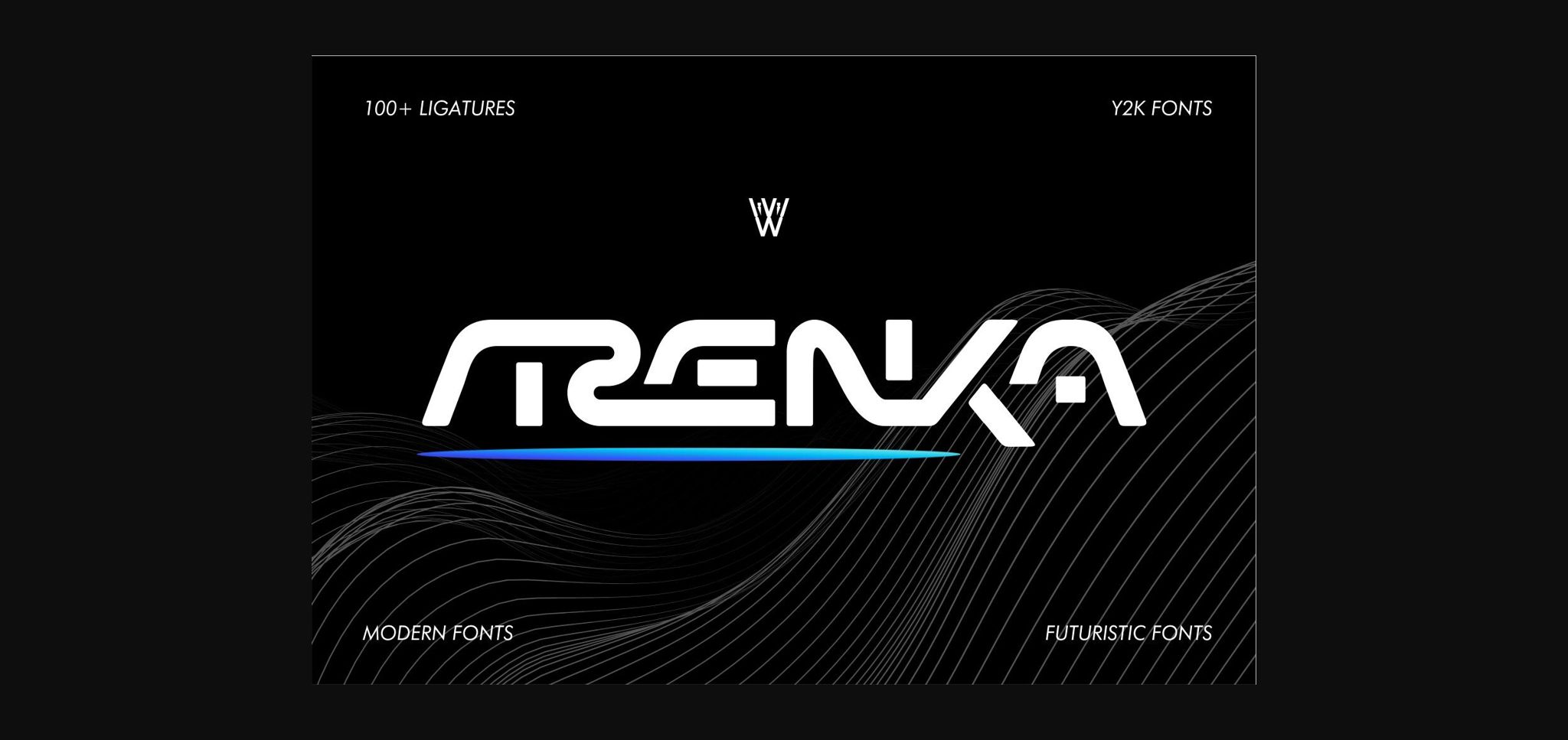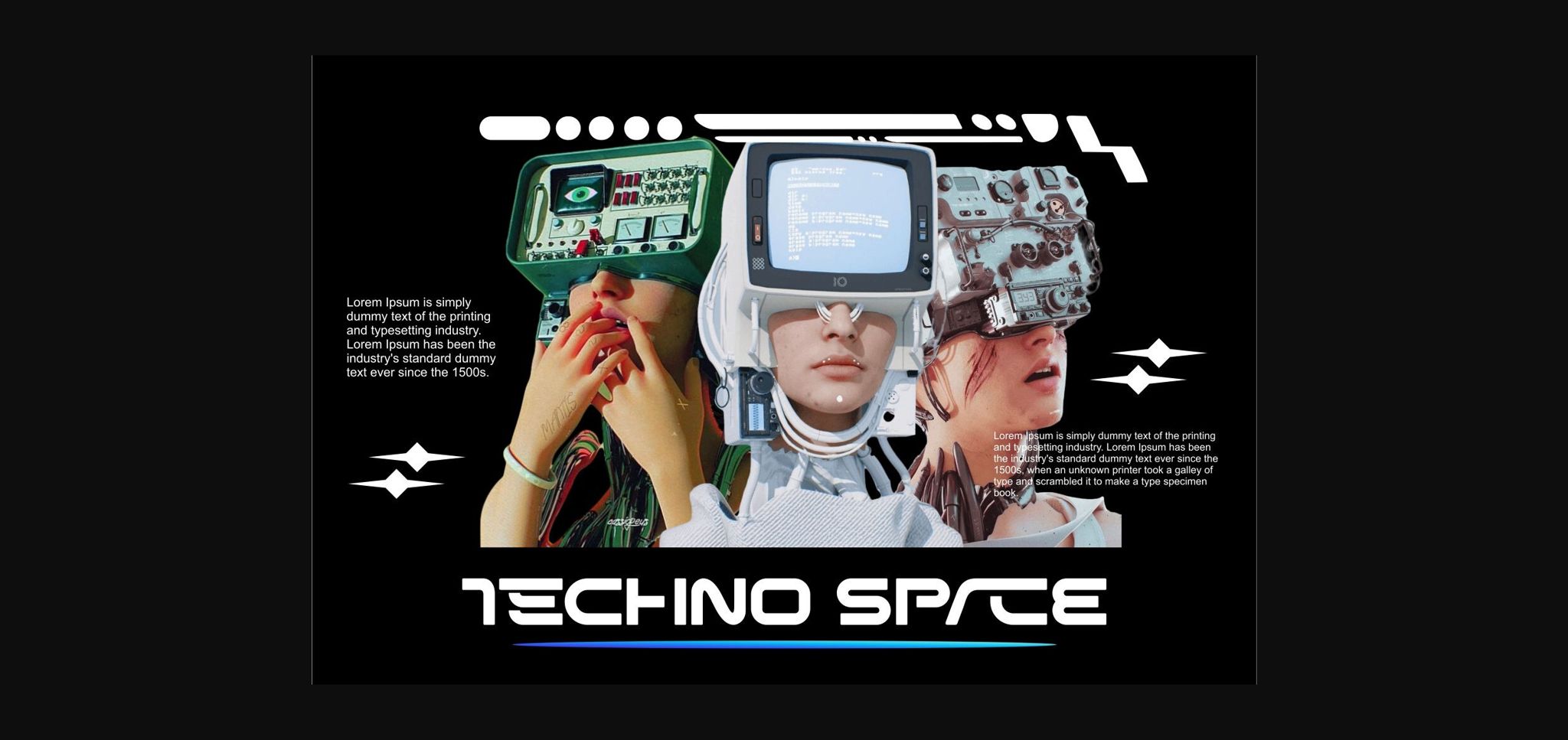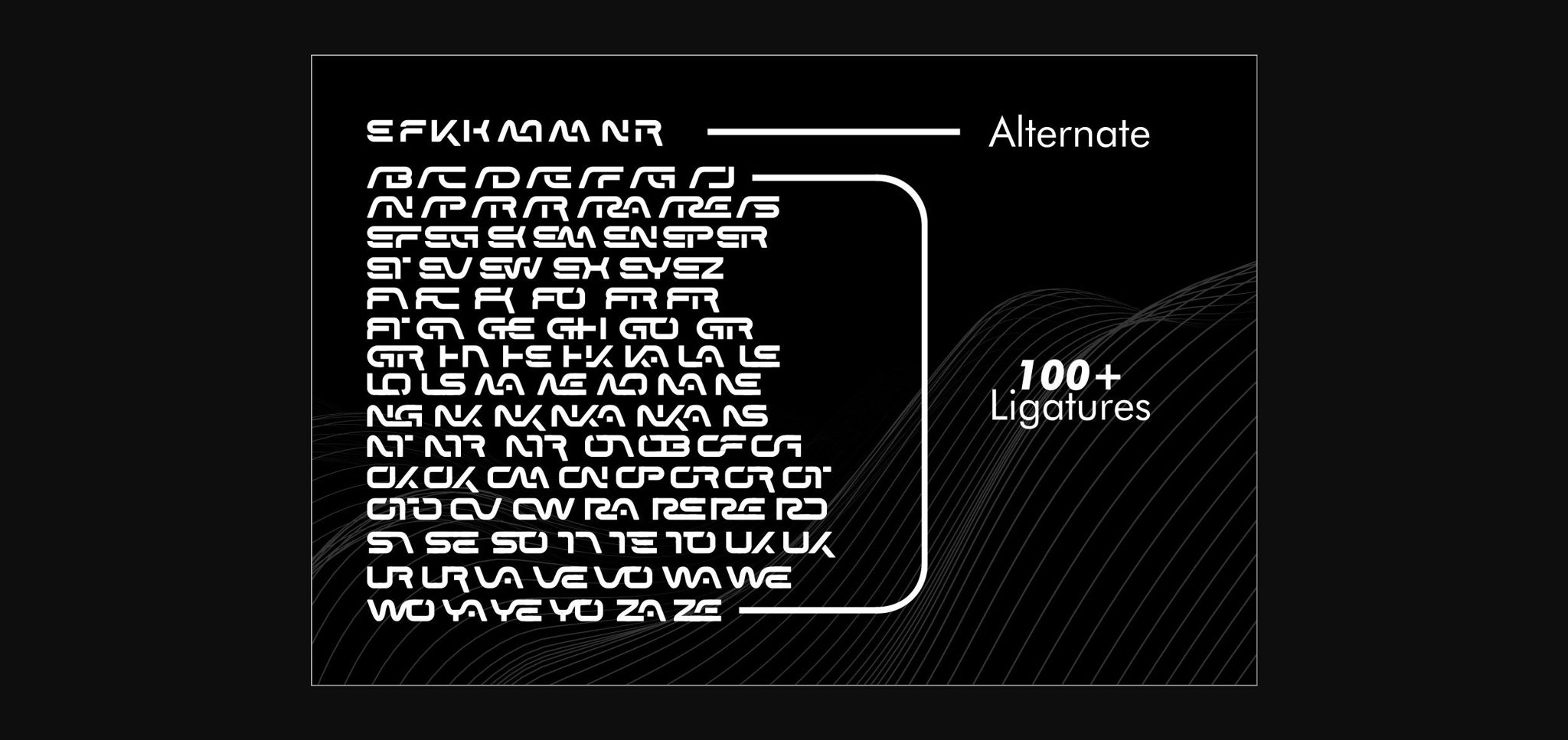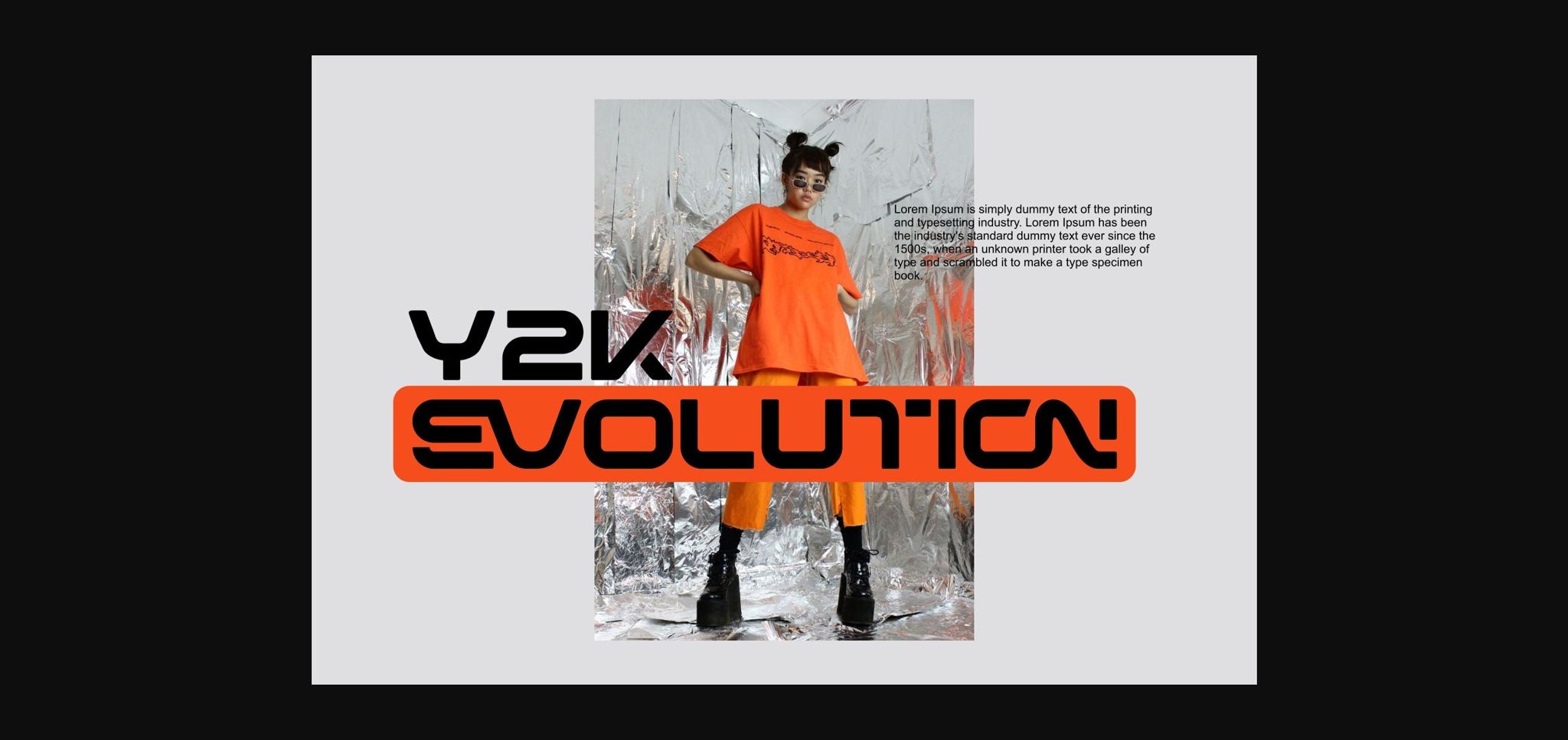
About Arenka Font
The market’s saturation with modern technology is palpable. The rotation of trends in the 2000s is proof that the old style has come.
The birth of the Arenka Font is a fact of my concern for the interest of digital artists out there who want to bring the nuances of Y2k fonts back to the fore.
Arenka comes with innovations, around 100+ Ligatures and 100+ glyphs available, and carries a futuristic form that has been coveted by the market, now Arenka Fonts can embrace the “Newstalgia” who want to reminisce by mixing new nuances in today’s modern era.
The birth of the Arenka Font is a fact of my concern for the interest of digital artists out there who want to bring the nuances of Y2k fonts back to the fore.
Arenka comes with innovations, around 100+ Ligatures and 100+ glyphs available, and carries a futuristic form that has been coveted by the market, now Arenka Fonts can embrace the “Newstalgia” who want to reminisce by mixing new nuances in today’s modern era.